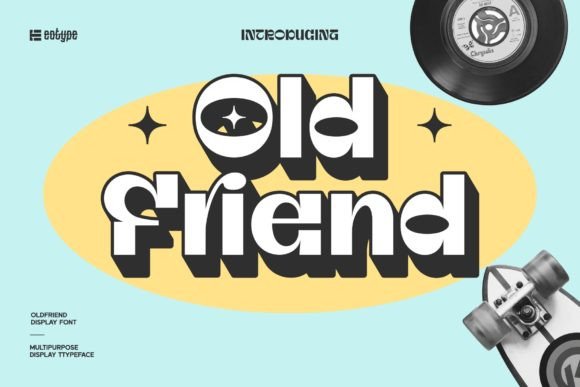
Journey into the realm of sophistication with Oldfriend Font, a display font masterpiece crafted by eotype. This font family exudes elegance and charm, reminiscent of those vintage designs of yesteryear. Whether you're seeking a touch of retro nostalgia or a dash of urban allure, Oldfriend Font is your trusted companion.
Unleash your creativity and let your designs blossom with the vibrant energy of Oldfriend Font. Its playful and friendly nature brings a touch of whimsy to any project, making it the perfect choice for logos, product labels, posters, and more. Dare to be unique and let your designs stand out from the crowd with Oldfriend Font.
Discover the beauty of this multipurpose font, meticulously designed to suit various projects and aesthetics. Create eye-catching logos that exude luxury and refinement. Design product labels that radiate a sense of nostalgia and charm. Craft posters that capture the essence of vintage elegance. With Oldfriend Font, the possibilities are boundless.
Embrace the versatility of Oldfriend Font and let your imagination soar. With its alternative style and ligature features, you'll find endless opportunities to add a personal touch to your designs. Experiment with different styles and combinations to create truly unique and captivating visuals that leave a lasting impression.
Welcome Oldfriend Font into your creative arsenal and elevate your designs to new heights. Its ability to blend seamlessly into various design concepts makes it an indispensable tool for any designer seeking to make a statement. Experience the magic of Oldfriend Font and transform your creative visions into extraordinary realities.